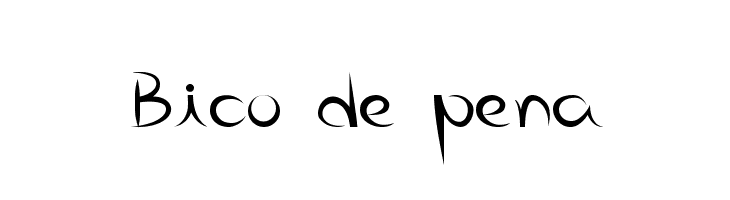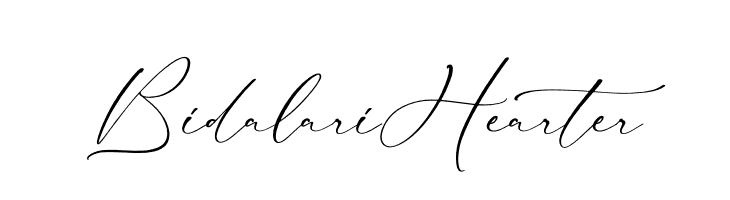
A playful, zigzag-patterned font with a hand-drawn, whimsical style.
A flowing, cursive font with elegant, elongated strokes and a sophisticated yet approachable style.
A modern, elegant script font with a flowing, cursive style.
A modern, elegant script font with fluid, connected letterforms.
A bold, angular font with a distressed, grunge texture.
A playful, casual handwritten font with rounded, consistent strokes.
A bold, robust slab serif font with strong, heavy strokes.
A bold, impactful font with thick strokes and strong presence.